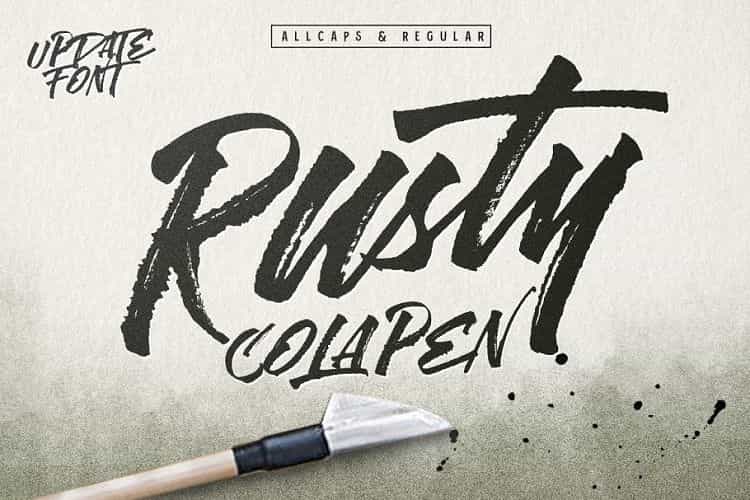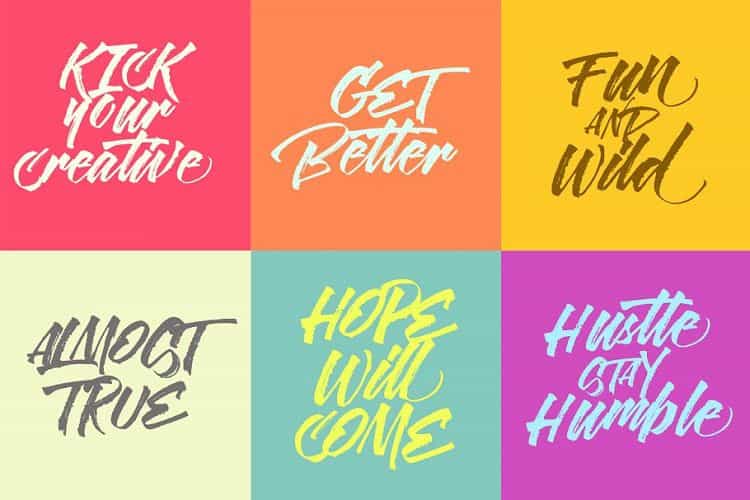
Discover Rusty Cola Pen Font, part of the Brush collection—a versatile and unique font perfect for adding a personal touch to your projects. Download it for free and enjoy crafting designs with style, from invitations to social media posts. This font is available exclusively for personal use, giving you the freedom to create without limits. Unlock your creativity with Rusty Cola Pen Font today!
Rusty Cola Pen Font is the hand painted brush script typeface made to assist you in making the effect of the spectacular custom hand-lettering. Rusty ColaPen type comes with upper and lowercase characters, punctuation, numerals, and Rusty ColaPen type is very best choice fonts for : ,quotes, Posters, Logos, Print Ads, Digital Ads, Promotion Product, video bumper, etc.